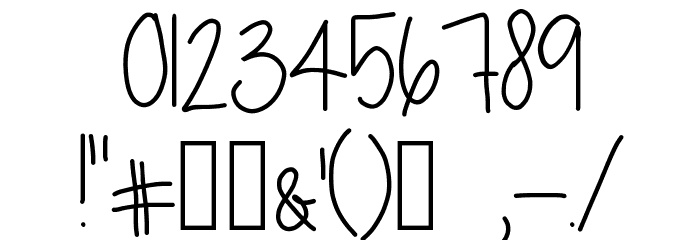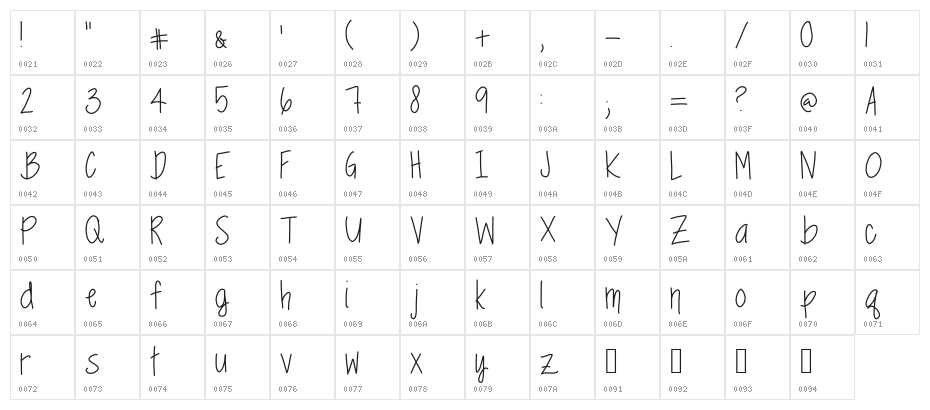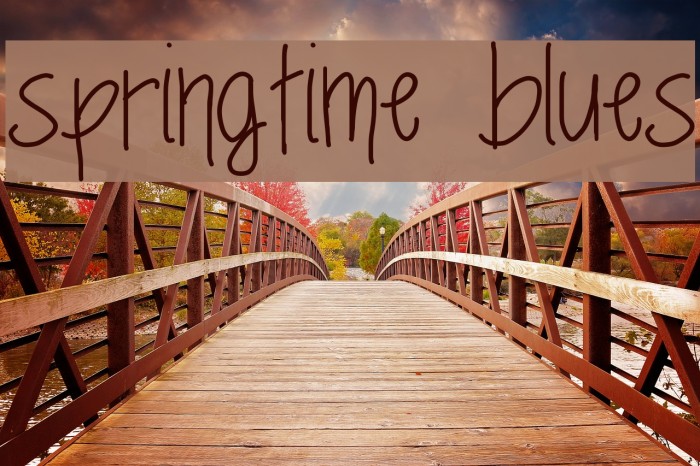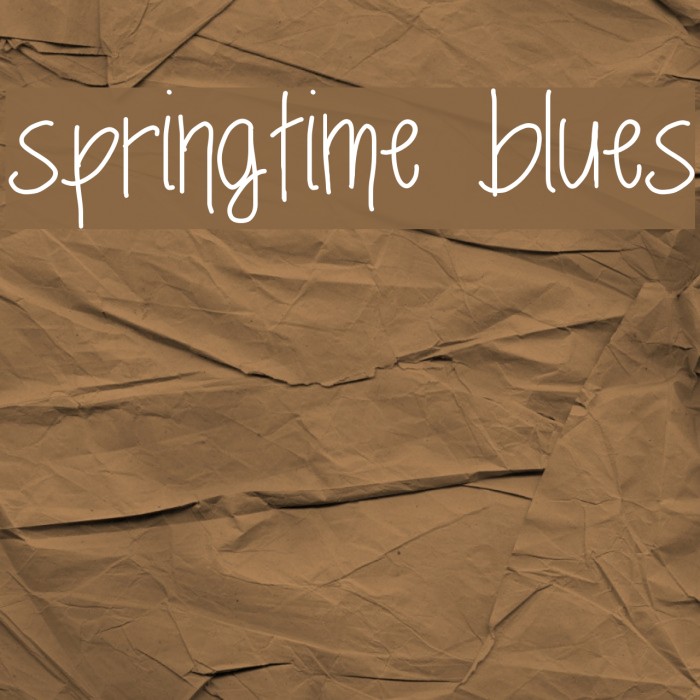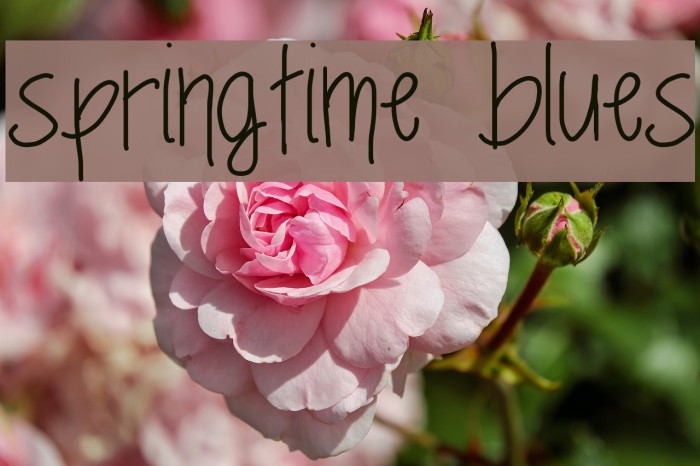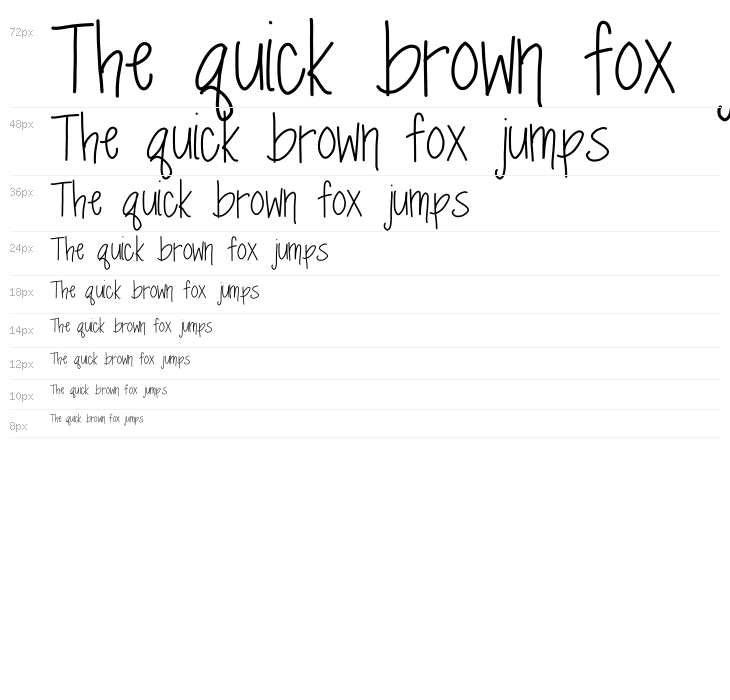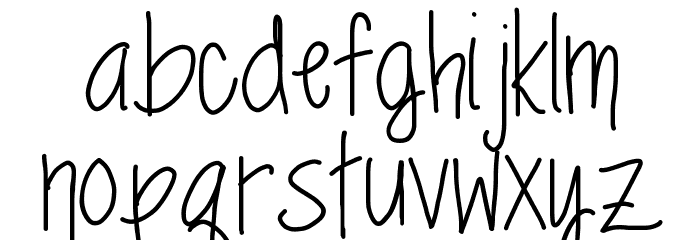
springtime blues Font
springtime blues Description
This font features a playful and casual handwritten style, characterized by its tall, narrow letters and slightly irregular strokes. The uppercase and lowercase letters maintain a consistent flow, giving it a friendly and approachable appearance. The numerals and special characters complement the alphabet with similar whimsical qualities. The overall look is informal yet legible, making it suitable for projects that require a personal touch. Its unique charm lies in the subtle variations in line thickness and the natural, unrefined edges of each character.
| Use Case | Headlines, Informal text, Personal projects |
| Proposed Projects | Ideal for greeting cards, children's books, casual invitations, and personal branding. |